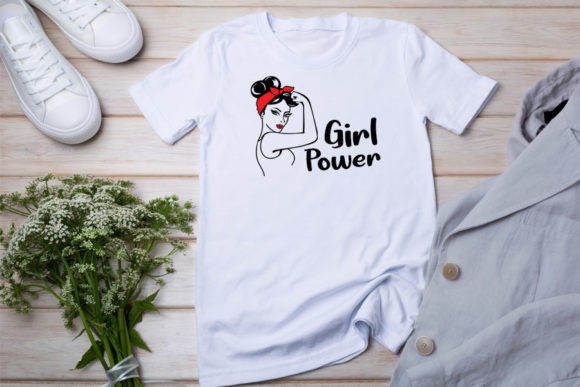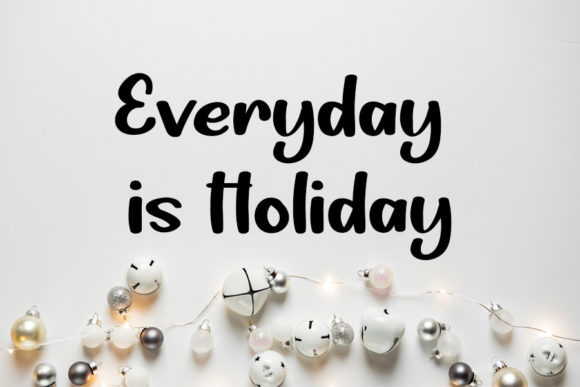
Potato Font
db-ku.com - Script & Handwritten -- Potato is a gorgeous, cursive and thick lettered handwritten font crafted to give your headlines and logotype projects a stylish touch. This font reads as strong, confident, and dynamic and can add tons of nostalgic character to your designs.